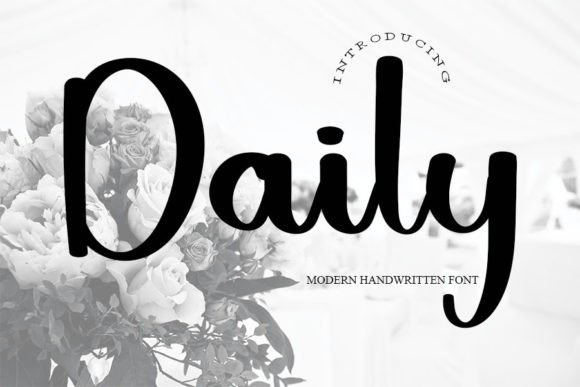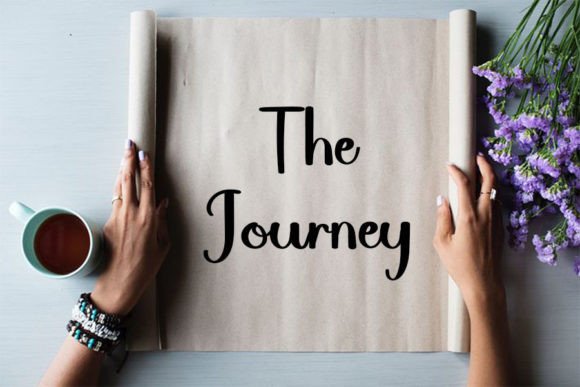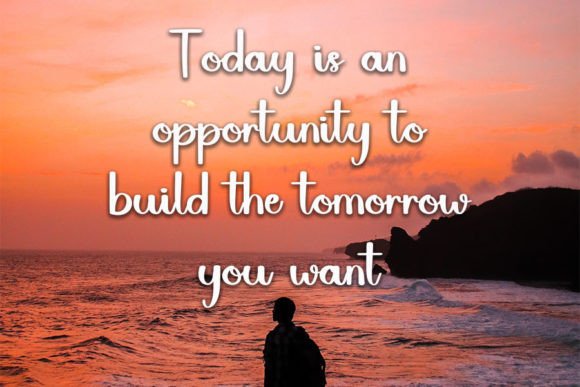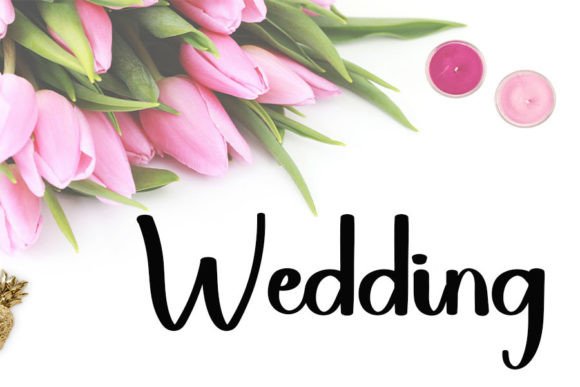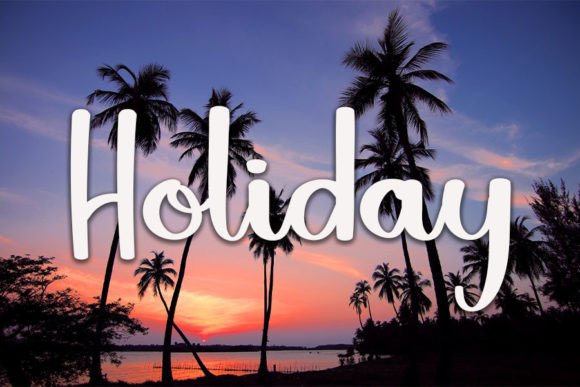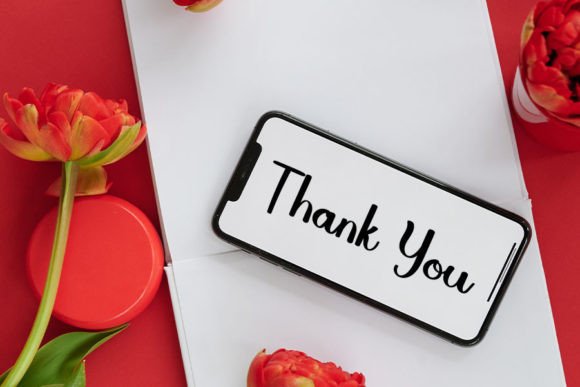
Daily Font
About Daily Font
Daily Font is a magical handwritten typeface thoughtfully designed with a touch of elegance and a hint of quirkiness. Its clean lines and playful personality make it ideal for logos, branding, social media graphics, and crafty DIY projects. Daily offers a unique style that helps your creative work stand out with charm and sophistication.
Elegant and Quirky Design
Daily combines smooth, elegant strokes with subtle quirks, creating a font that is both polished and fun. This balance makes it suitable for a wide range of creative uses, from professional branding to casual, playful designs.
Ideal Uses for Daily Font
Daily is perfect for:
• Logos and brand identities
• Social media posts and banners
• Product packaging and labels
• DIY crafts and personal projects
• Invitations and greeting cards
Its unique style adapts beautifully to many creative contexts.
Why Choose Daily Font?
Designers choose Daily for its:
• Magical and elegant handwritten look
• Clean, quirky character that adds personality
• Versatility across print and digital media
These features make Daily a practical and delightful font choice.
Add Magic and Charm to Your Designs
Typography shapes the feel of your project. Daily adds a magical, elegant, and quirky personality that enhances your designs with warmth and style. Whether for branding, social media, or DIY crafts, this font helps your work shine.
In summary, Daily Font is an elegant and quirky handwritten script perfect for designers seeking a magical touch. Add Daily to your font collection to create charming and stylish designs.